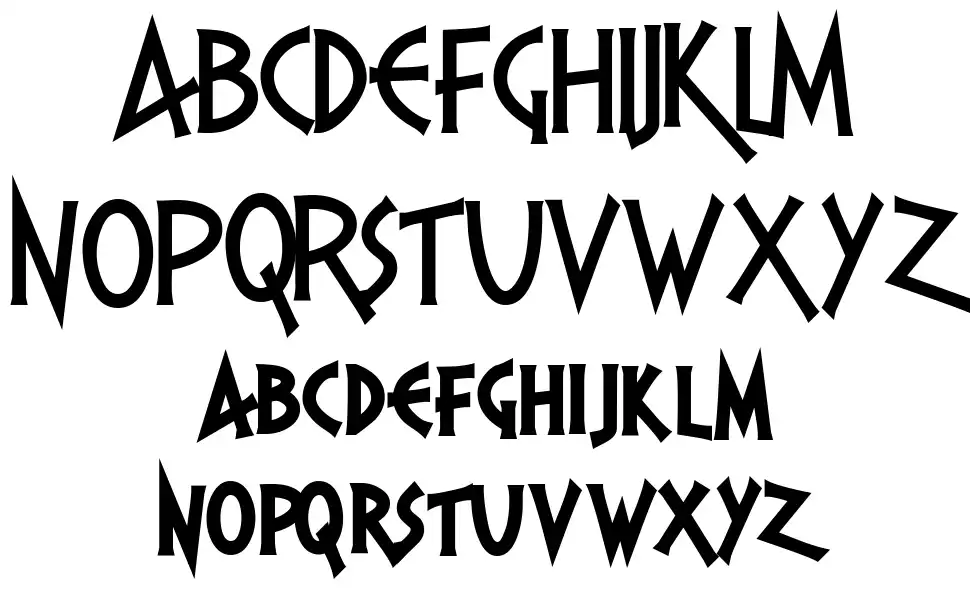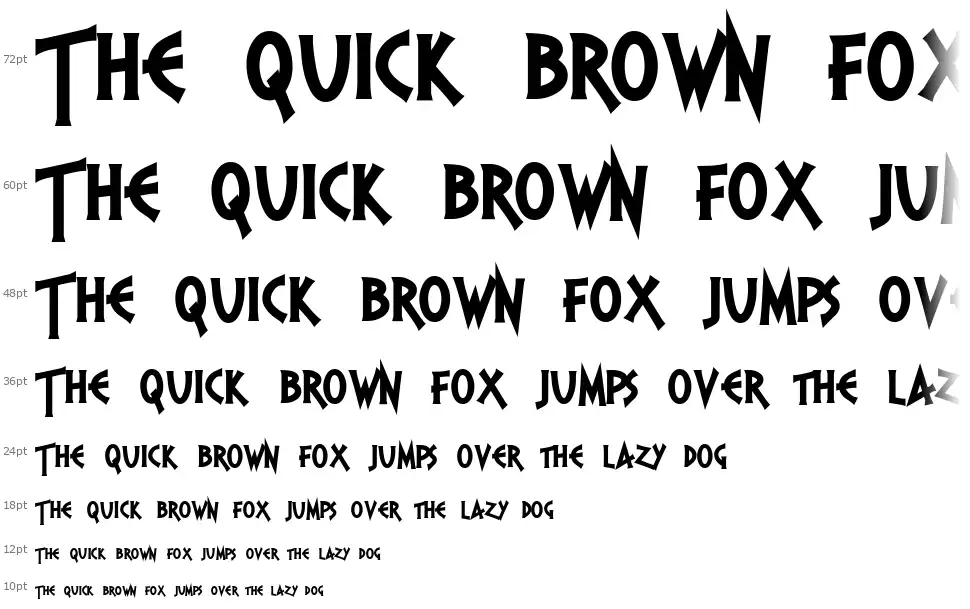
Pr Agamemnon Font . Explore our extensive collection of beautiful. This font is somewhat more refined, with the capitals and small letters being made with the same stroke thickness but with a size ratio of 5 to 8, similar to the so called golden section.
Pr Agamemnon Font - This font is somewhat more refined, with the capitals and small letters being made with the same stroke thickness but with a size ratio of 5 to 8, similar to the so called golden section. Download pr agamemnon for free, view sample text, rating and more on fontsgeek.com Free pr agamemnon font in ttf, woff2 or otf format. Explore our.